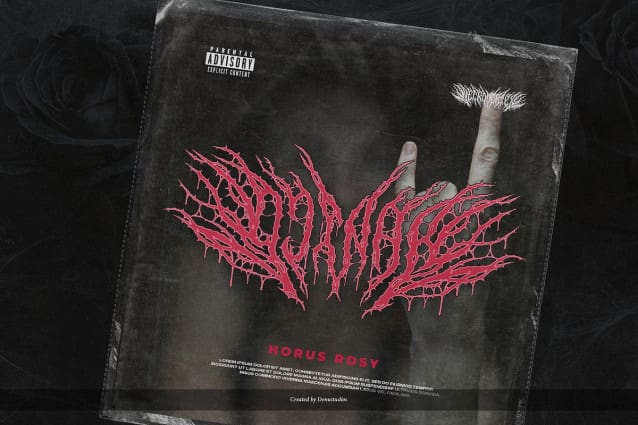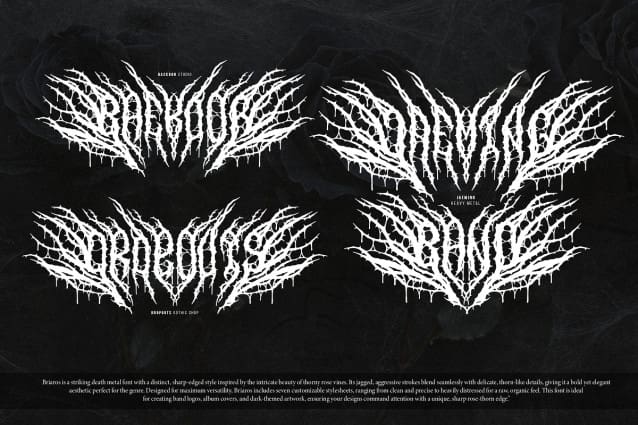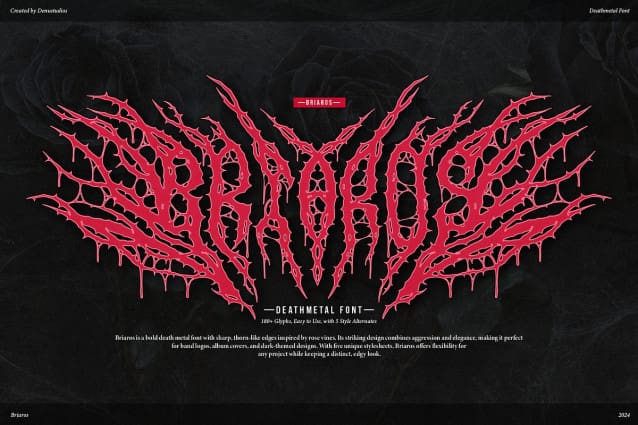
BRIAROS DEATH METAL TYPEFACE
Briaros Death Metal Font, from Denustudios, suitable for any projects such as: logos, branding projects, homeware designs, product packaging, mugs, quotes, posters, shopping bags, t-shirts, book covers, name card, invitation cards, greeting cards, label, photography, watermark, special events, and all your other lovely projects that need a Death Metal Font taste.